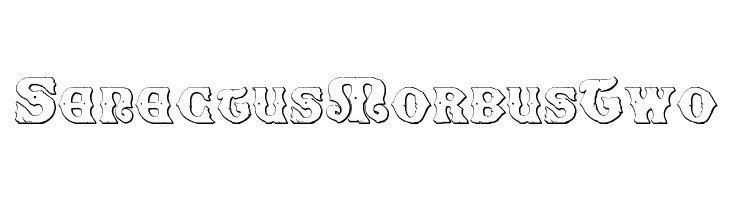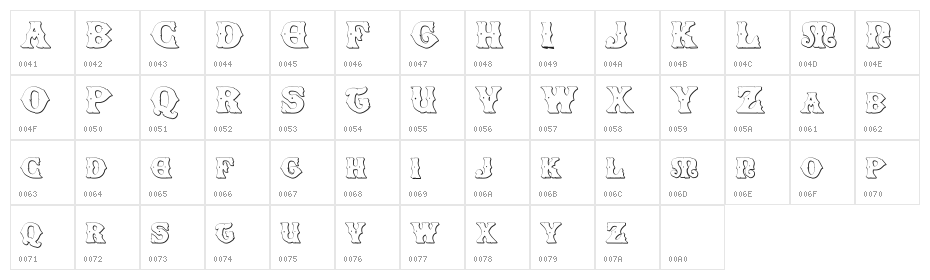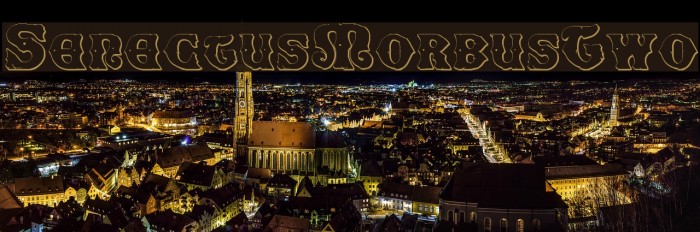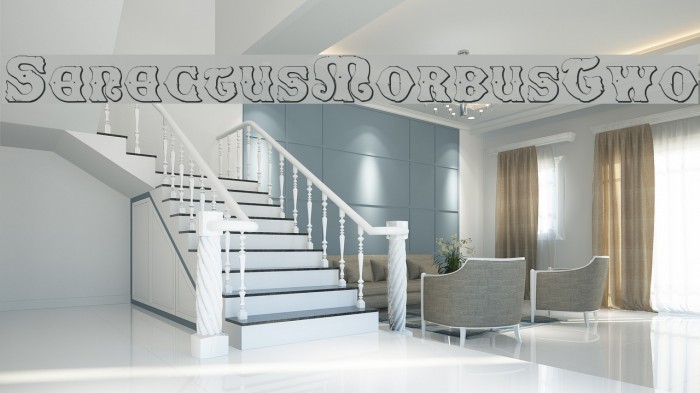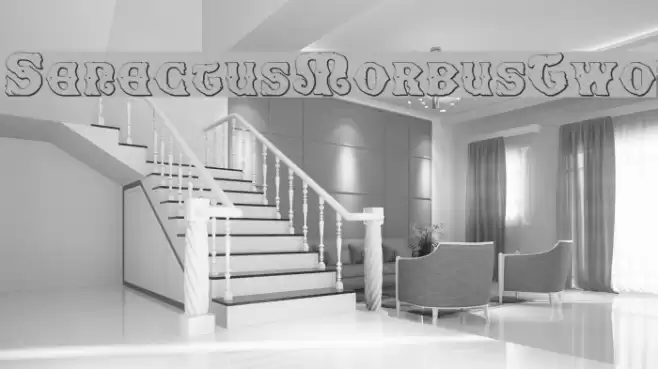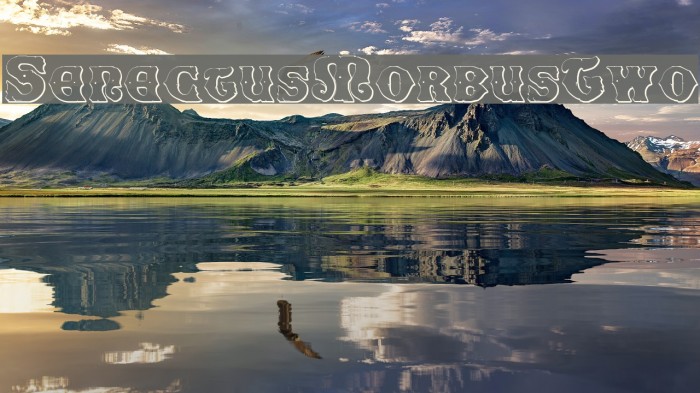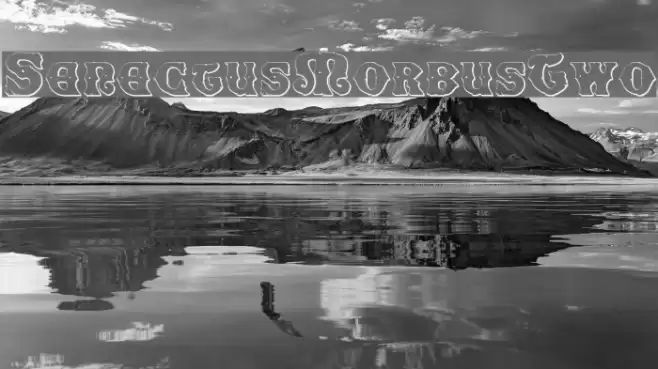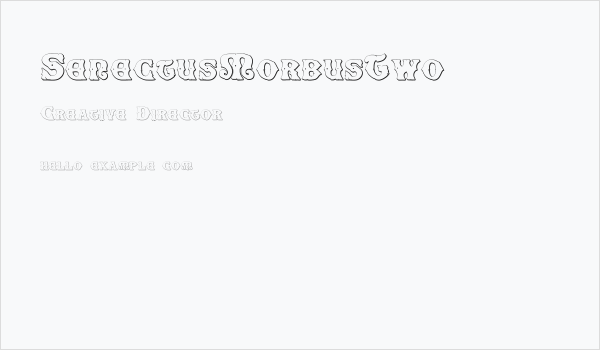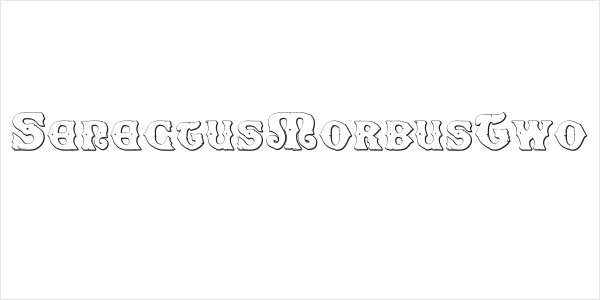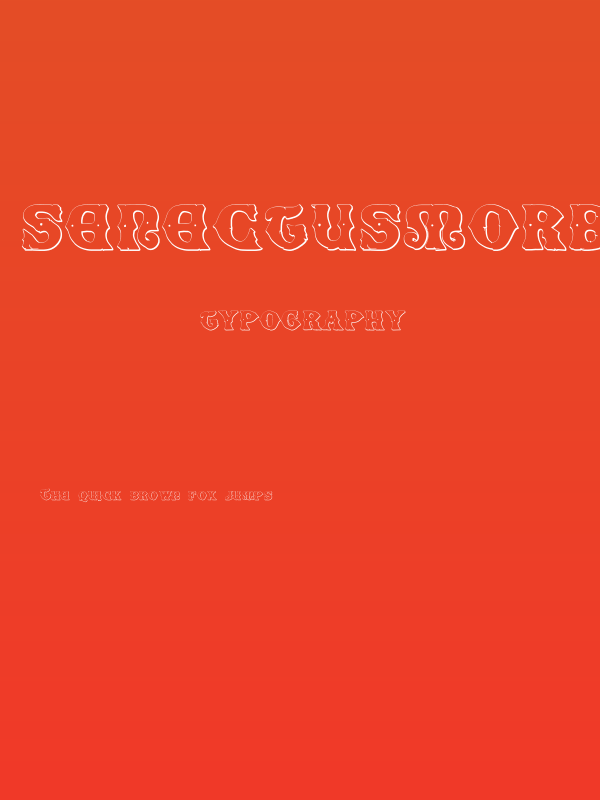
SenectusMorbusTwo Font
SenectusMorbusTwo Description
This font features a bold and decorative style with a playful, almost whimsical appearance. Each character is uniquely designed with intricate details and a slightly distressed look, giving it a vintage feel. The letters are bold and have a substantial presence, making them stand out prominently. The font's design includes ornate curves and edges, adding to its decorative nature. It is suitable for creative projects where a distinctive and eye-catching typeface is desired.
| Overall Style | Vintage, Decorative |
| Proposed Projects | Ideal for posters, album covers, event invitations, and branding projects that require a unique and artistic touch. |